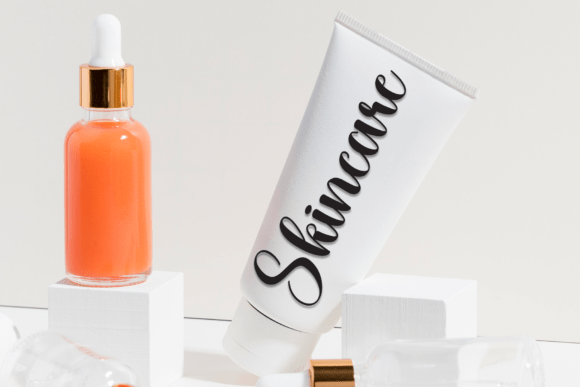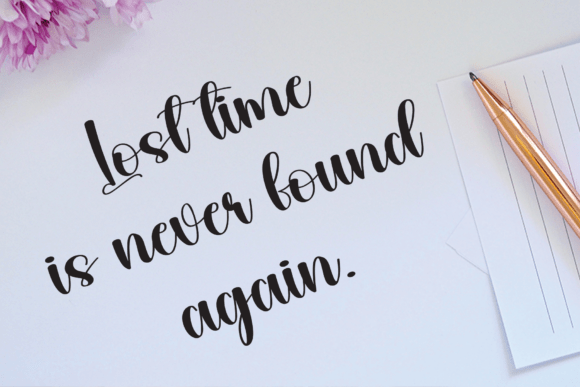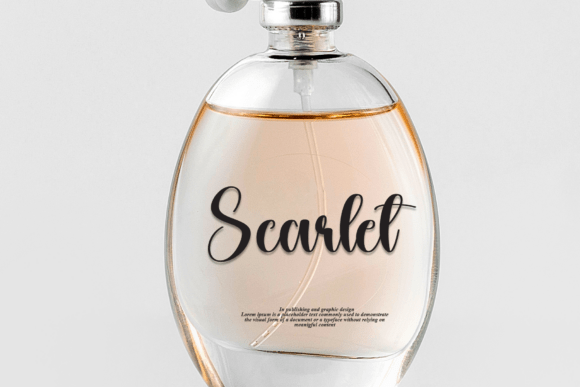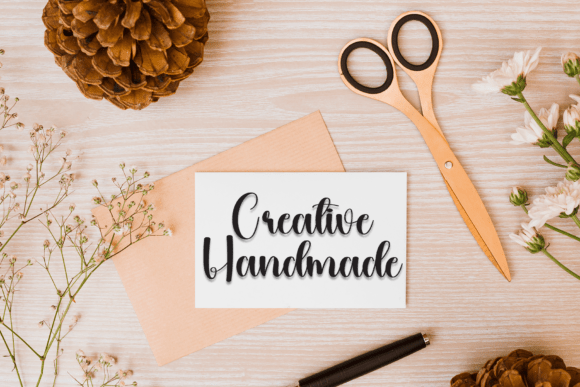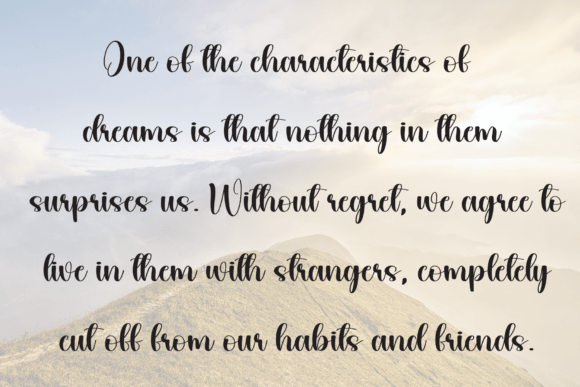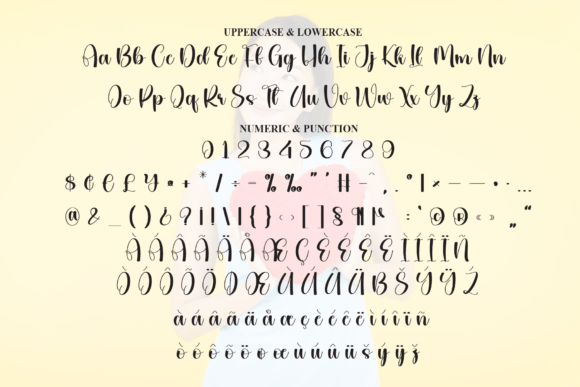
The Perfect Brushstroke: Unlocking the Charm of Heartgirl Font
As a designer, there’s nothing quite like the thrill of discovering a new font that perfectly captures the essence of a project. For me, that moment came when I stumbled upon the enchanting Heartgirl Font. Its elegant, handwritten script design has been a game-changer in my creative workflow, elevating even the simplest projects into stunning works of art.
With its flowing curves and natural rhythm, the Heartgirl Font adds a personal touch to invitations, branding, and social media. Whether you’re looking to create a warm and inviting atmosphere or a sophisticated and creative vibe, this font has got you covered. Its versatility makes it an invaluable asset for designers, allowing them to express their unique style and vision with ease.
Key Features of Heartgirl Font
- Font Style: A unique, handwritten font with a touch of elegance and whimsy.
- Unique Characteristics: Features a mix of cursive and script elements, with subtle flourishes and variations in letterforms.
Heartgirl Font Review
Overall, I have mixed feelings about the Heartgirl Font. On one hand, there are some things that it does very well.
- ✨ Beautiful, cursive script: The Heartgirl Font has a lovely, flowing feel to it. The letters are connected and the overall effect is very feminine.
- ✨ Variety of weights: The font comes in a range of weights, from light to bold, which makes it very versatile.
- ✨ Easy to read: Despite its script nature, the Heartgirl Font is still very easy to read, even at smaller font sizes.
However, there are also some limitations that prevent me from giving it a glowing review.
- ⚠️ Limited language support: The Heartgirl Font appears to be optimized for Latin-based languages, which may limit its use for other languages.
- ⚠️ Not suitable for large blocks of text: The script nature of the font can make it difficult to read when used for large blocks of text.
- ⚠️ May not be suitable for digital use: The font may not be optimized for digital use, which can result in a poor reading experience.
Overall, the Heartgirl Font is a nice choice for titles, headings, and other short pieces of text where its script nature can be appreciated. However, it may not be the best choice for large blocks of text or for languages other than Latin-based languages.
For best results, use the Heartgirl font for titles, headings, and emphasis in your designs. This font is ideal for creating whimsical, feminine, and playful designs. It’s perfect for:
– Social media posts and graphics
– Blog posts and articles
– Children’s books and educational materials
Alternatives to Heartgirl Font for Designers
Great Vibes Font is a beautiful, handwritten script font. It’s perfect for creating a friendly, approachable atmosphere in designs such as invitations, greeting cards, and social media graphics. Great Vibes Font is similar to Heartgirl Font in its elegant and whimsical feel, but it has a more refined and sophisticated look.
Alex Brush Font is a calligraphic script font that’s great for adding a touch of elegance and sophistication to designs. It’s ideal for use in logos, branding materials, and packaging designs where a high-end feel is desired. While Heartgirl Font is more playful and whimsical, Alex Brush Font has a more refined and luxurious look.
Carolyna Pro Font is a modern, elegant script font that’s perfect for creating a sophisticated and stylish atmosphere in designs. It’s great for use in branding materials, packaging designs, and editorial content where a high-end feel is desired. Carolyna Pro Font is similar to Heartgirl Font in its elegant feel, but it has a more modern and sleek look.